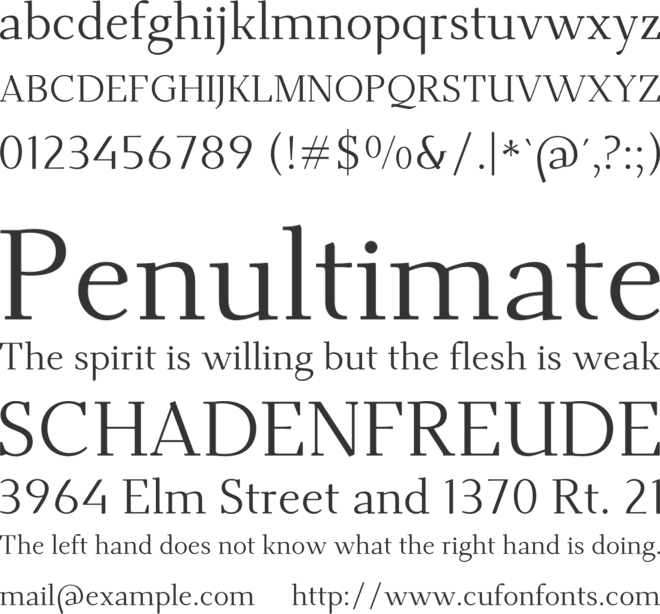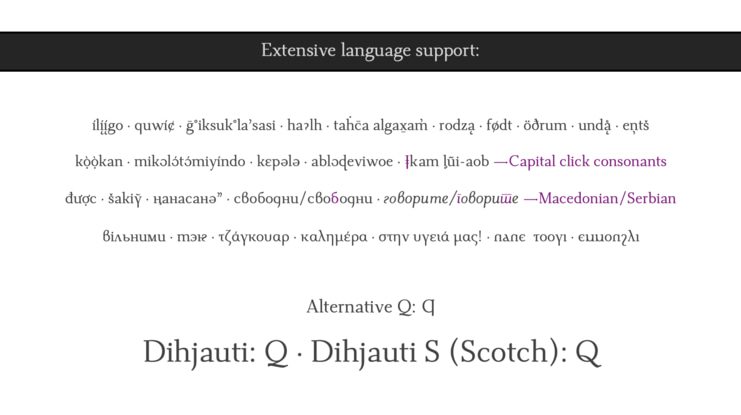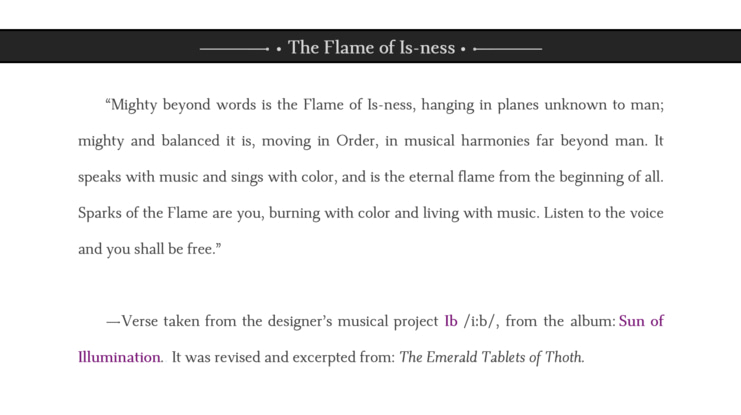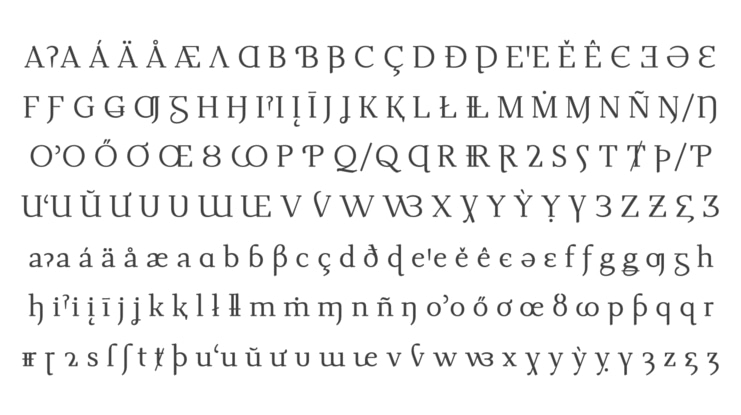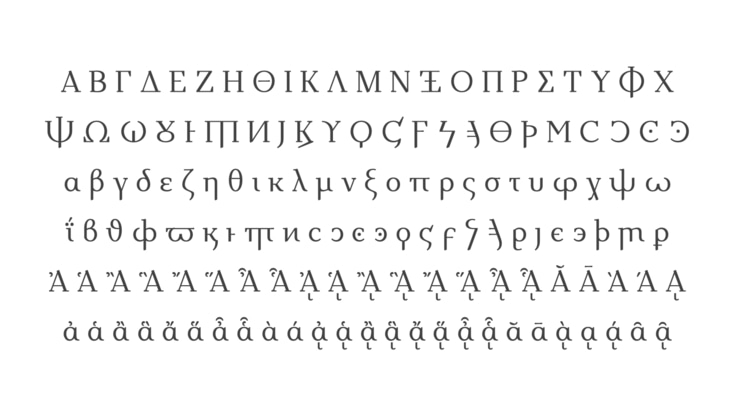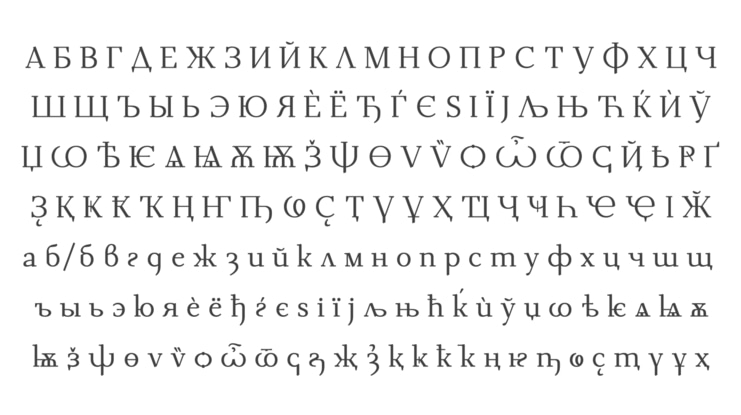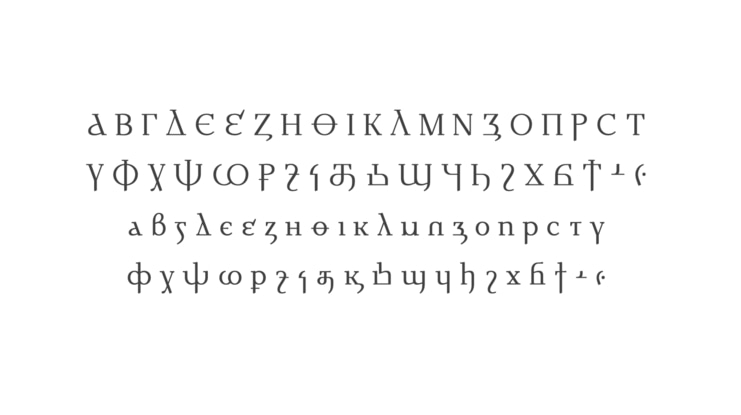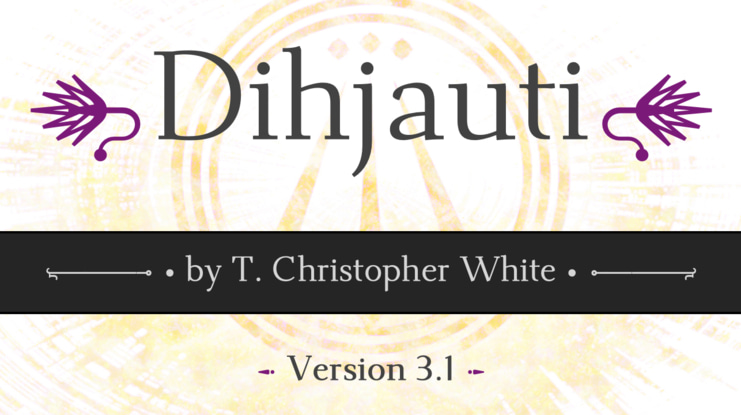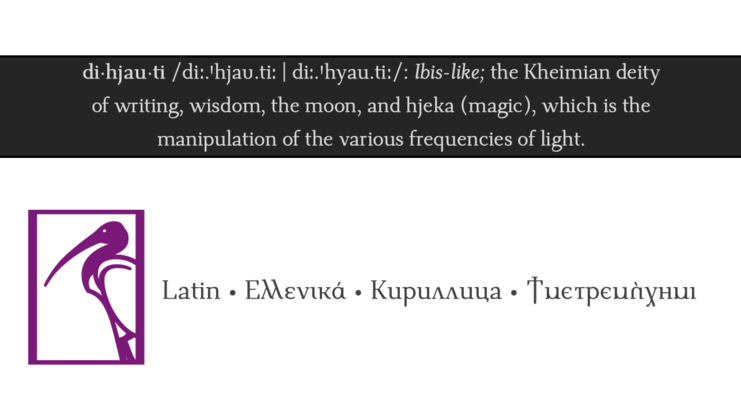
Dihjauti /di:.'hjau.ti: | dee.'hyow.tee/, is predominantly based off Dwiggin's Electra with shades of Baskerville, Fairfield, and Perpetua. It is modern and stately, and like its inspirers, it has broad counters and spacing, which temper it and give it warmth, making it comfortable and well-suited for longer texts. It is balanced in all aspects, from its punctuation to its reference marks and symbols. Its design takes into consideration all extra characters for languages that few fonts support, such as African and First Nation. These extra characters, such as Edh, Esh, Gamma, Ezh, Yogh, the pharyngeal fricatives, the click consonants (which have added capital versions), the glottal stops, et cetera, actually look like they belong, as opposed to being afterthoughts. The italic incorporates a touch of Arrighi. It includes all transcription systems relevant to the Latin, Cyrillic, and Greek alphabets, as well as standard Coptic, plus extra characters for Teuthonista and First Nation. It also includes, to list a few, Egyptian-styled pictographs (where applicable), APL, a plethora of mathematical symbols and arrows, and a number of alternatives in the PUA. This is the revamped version of Dehuti/Dehjuti.
--UPDATES-- This version (3.1.0) has some fixed kerning issues, as well as a few glyph corrections in the Bold-Italic, and about 100 new glyphs added for transcription.
Notes: 1) The superscript characters, modifier letters, and the numerators, are all part of the superscript table. 2) The bold versions of the font have some alternative/reversed characters; I did this because there is no difference in the math or punctuation symbols, i.e., the bold versions are not actually bold (with exceptions), which gives the font a better harmony. 3) The font uses anchors, which means that it will not align properly for linguistic use, or otherwise, without opentype. 4) For those interested, Open or Libre Office can access all glyphs using: Insert > Special Character.